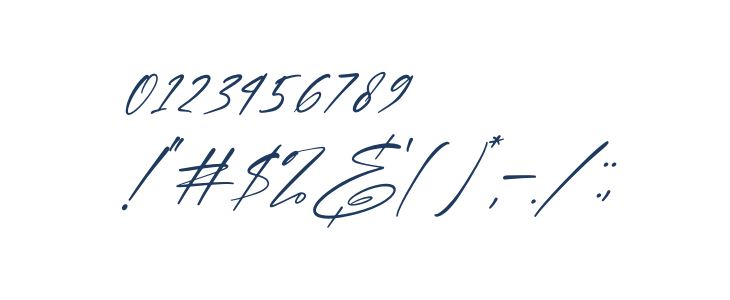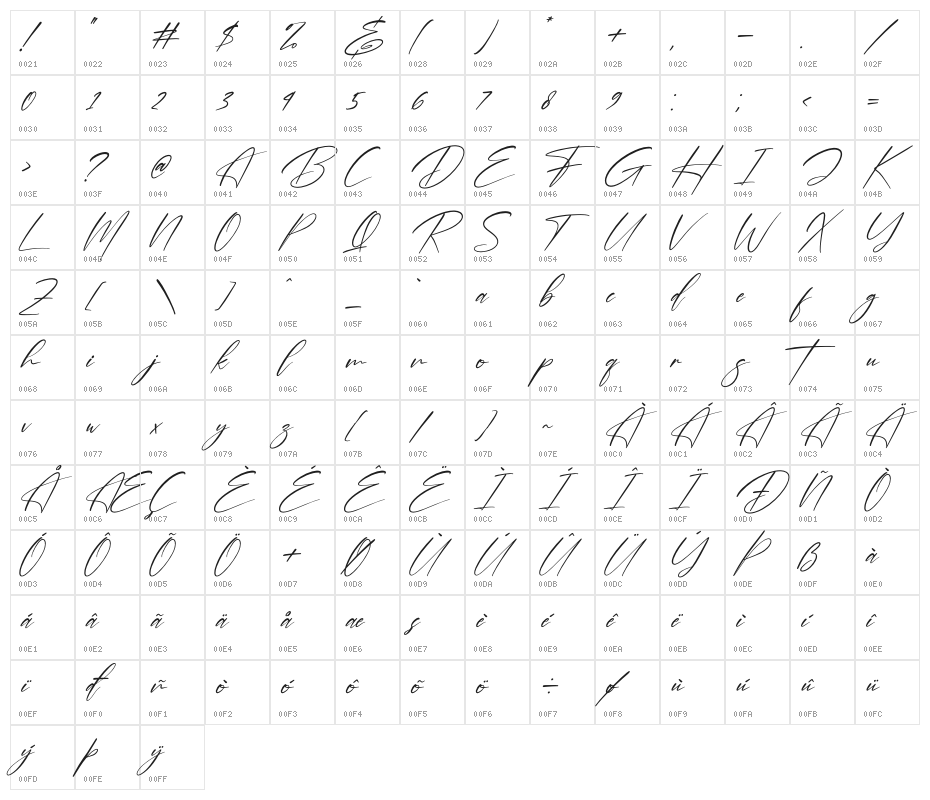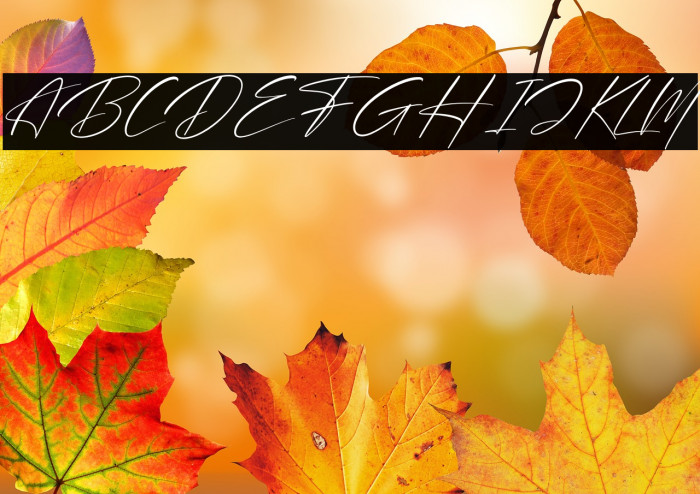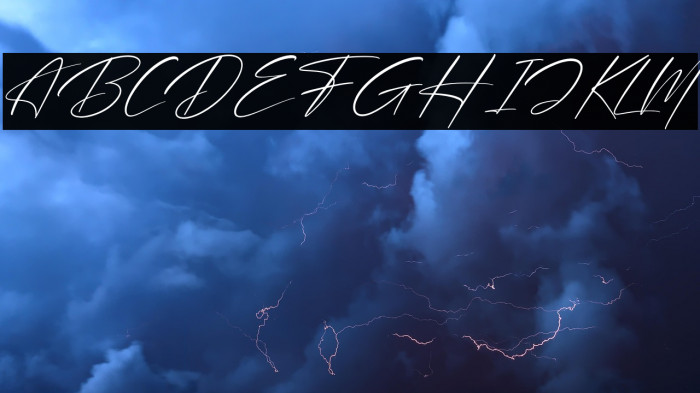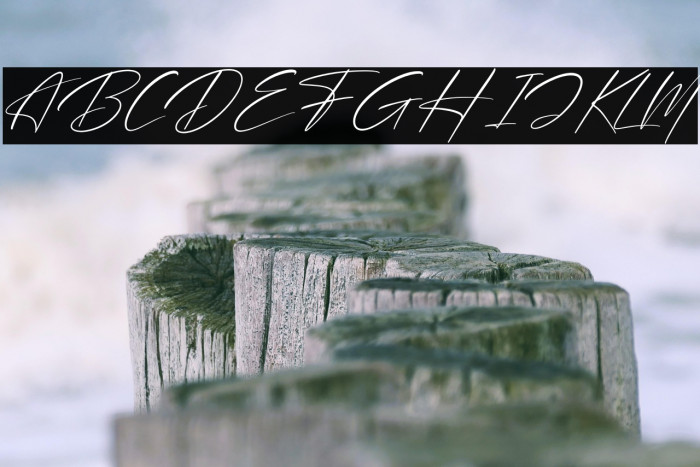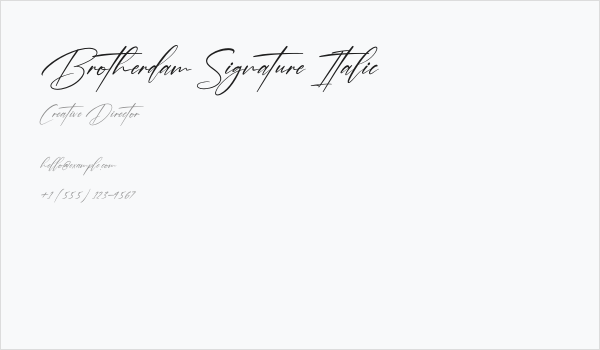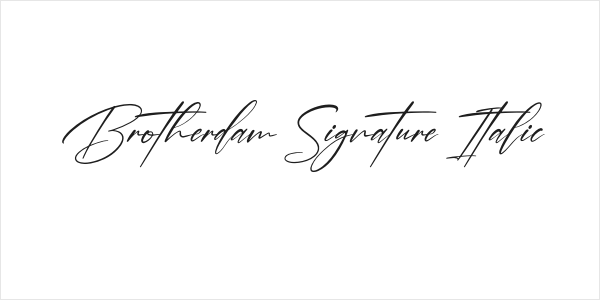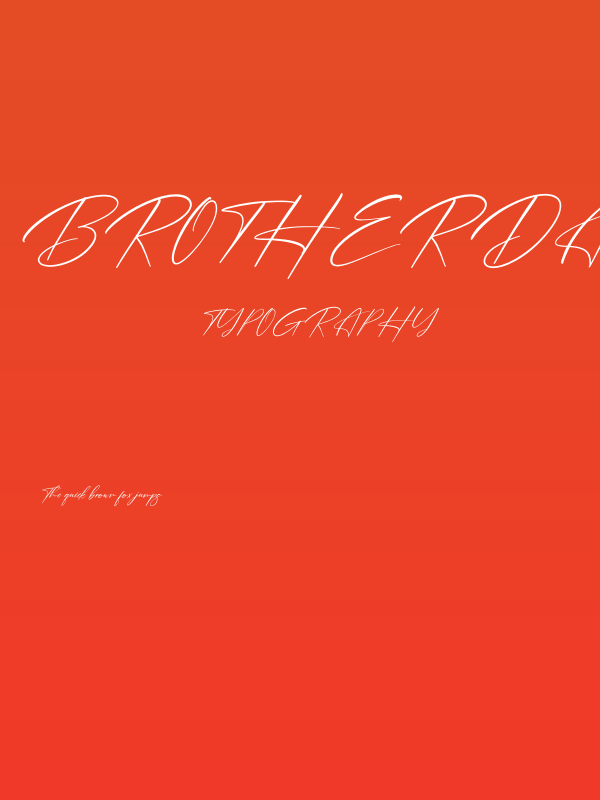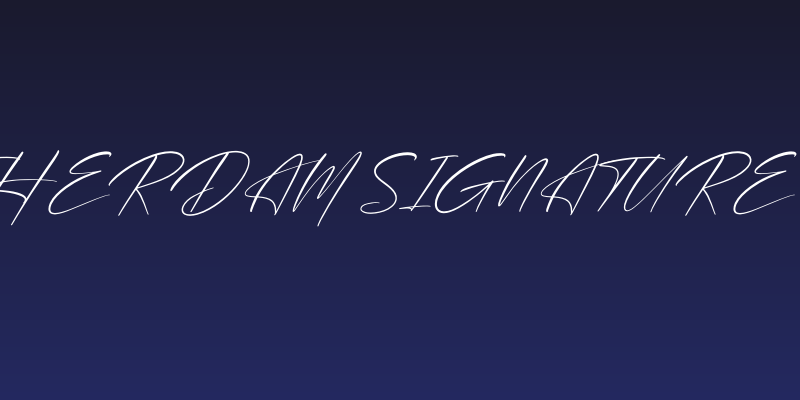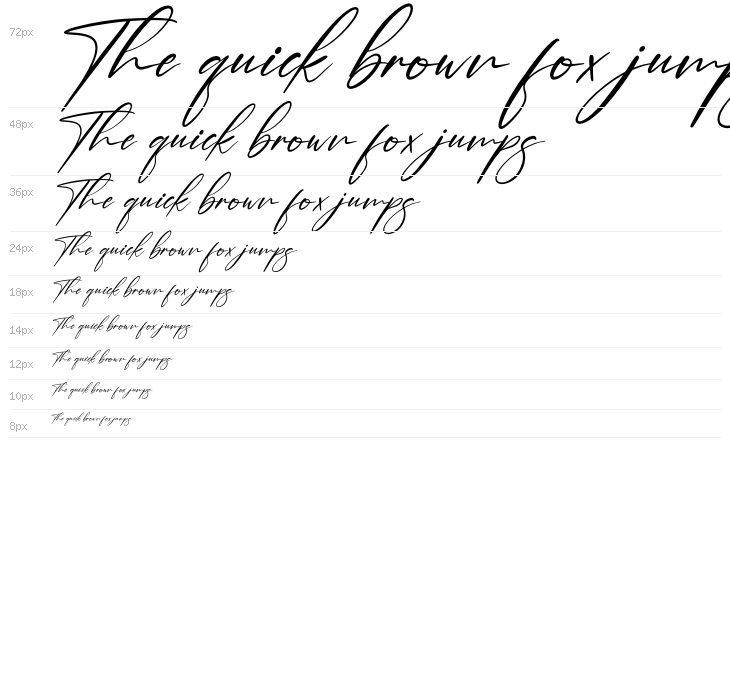
Brotherdam Signature Italic Font
Brotherdam Signature Italic Description
This font exudes elegance and sophistication with its fluid, cursive style that mimics the natural flow of handwriting. The letters are connected, creating a seamless and continuous script that is both graceful and dynamic. The strokes are thin and delicate, giving the font a light and airy feel. The italic slant adds a touch of movement and flair, enhancing its overall aesthetic appeal. This font is perfect for adding a personal touch to any design, whether it's for invitations, branding, or artistic projects. The numerals and special characters maintain the same stylistic consistency, ensuring a cohesive look across all elements.
| Use Case | Invitations, Branding, Artistic projects |
| Proposed Projects | Ideal for wedding invitations, personal branding, artistic projects, and elegant stationery. |